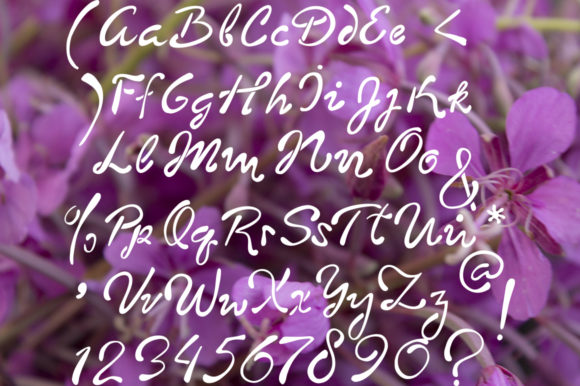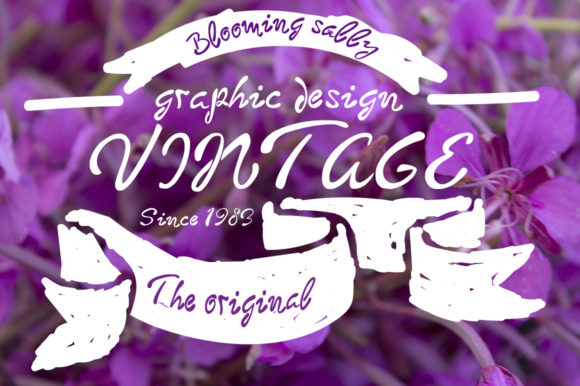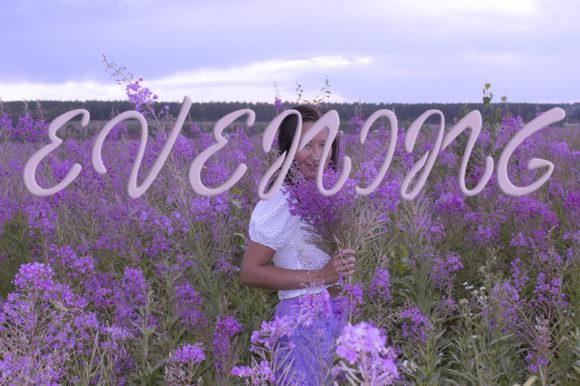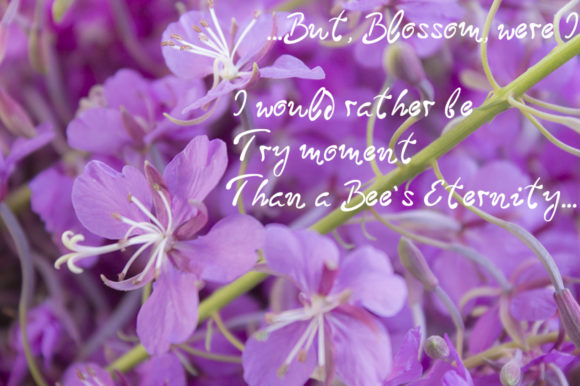
Blooming Sally Font: Elevate Your Designs with Elegance and Flair
Are you a designer or crafter looking for a font that exudes elegance and sophistication? Look no further than the stunning Blooming Sally Font. This beautiful handwritten font is perfect for adding a touch of refinement to your designs, and its versatility makes it suitable for a wide range of projects.
A Font that Flows with Elegance
Blooming Sally Font feels incredibly elegant and flowing, making it an ideal choice for designs that require a sense of luxury and refinement. Its smooth lines, gorgeous glyphs, and stunning alternates come together to create a font that is both visually striking and highly legible. Whether you’re working on a wedding invitation, a thank you card, or a business logo, Blooming Sally Font is sure to make a lasting impression.
One of the best things about Blooming Sally Font is its versatility. It’s perfect for a wide range of design projects, including:
- Wedding invitations: Add a touch of romance and elegance to your wedding invitations with Blooming Sally Font.
- Thank you cards: Express your gratitude in style with this beautiful font.
- Quotes: Make your quotes stand out with the elegant and flowing lines of Blooming Sally Font.
- Greeting cards: Whether it’s a birthday, anniversary, or holiday greeting, Blooming Sally Font is sure to make your card special.
- Logos: Add a touch of sophistication to your business logo with this stunning font.
- Business cards: Make a lasting impression with Blooming Sally Font on your business cards.
What Sets Blooming Sally Font Apart
So, what makes Blooming Sally Font so special? Here are just a few features that set it apart:
- Varying baseline: This feature gives the font a sense of movement and flow, making it feel more dynamic and engaging.
- Smooth lines: The smooth lines of Blooming Sally Font give it a sense of elegance and sophistication.
- Gorgeous glyphs: The font features a range of beautiful glyphs, including alternates, ligatures, and swashes.
- Stunning alternates: The alternates in Blooming Sally Font add an extra layer of elegance and sophistication, making it perfect for designs that require a high level of refinement.
Why Designers and Crafters Love Blooming Sally Font
Designers and crafters love Blooming Sally Font for many reasons. Here are just a few:
- Elegance: The font’s elegant and flowing lines make it perfect for designs that require a sense of luxury and refinement.
- Versatility: Blooming Sally Font is suitable for a wide range of design projects, from wedding invitations to business logos.
- High-quality: The font is high-quality and highly legible, making it perfect for designs that require a professional finish.
| Font Name | Blooming Sally Font |
| Author | Ana Babi |
In conclusion, Blooming Sally Font is a stunning handwritten font that is perfect for designers and crafters looking to add a touch of elegance and sophistication to their designs. Its versatility, smooth lines, gorgeous glyphs, and stunning alternates make it suitable for a wide range of projects, from wedding invitations to business logos. If you’re looking for a font that will elevate your designs and make them stand out, look no further than Blooming Sally Font.